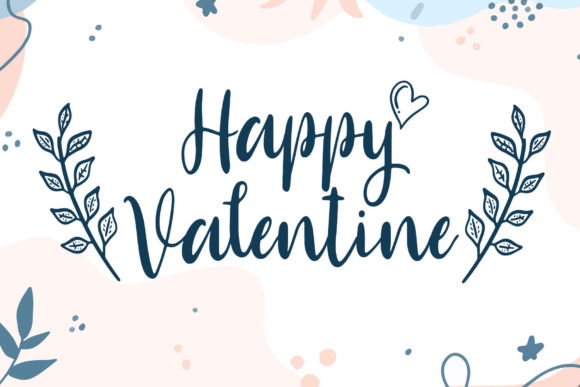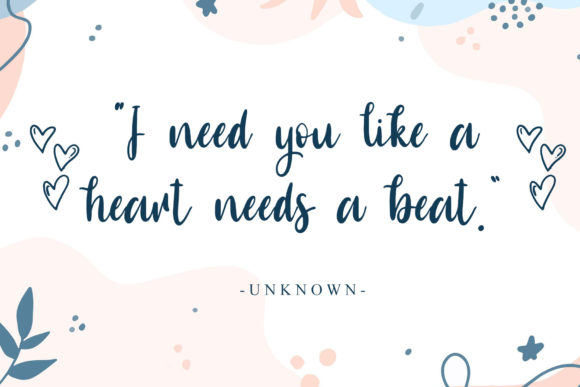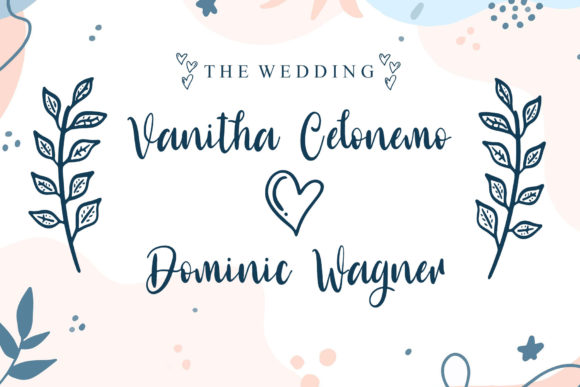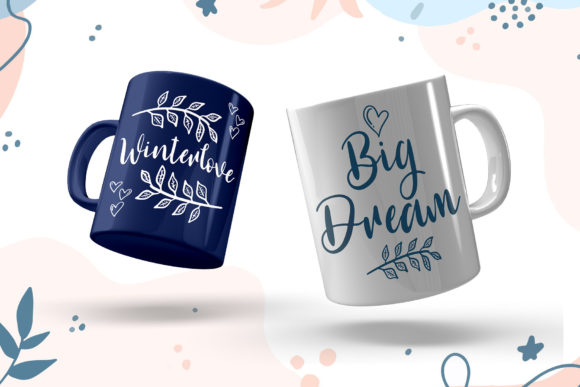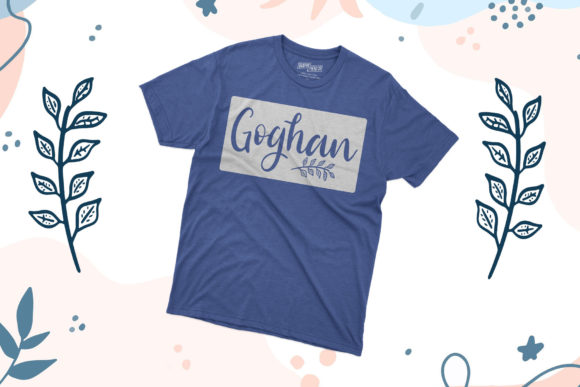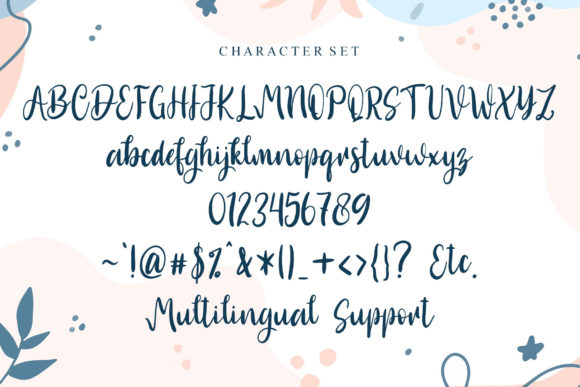
The Perfect Script Font for Your Next Design Project
Have you ever been stuck on a design project, staring at a blank canvas, searching for the perfect font to bring your vision to life? I know I have. It’s that moment when you need a font that speaks to you, that makes your design pop, and that tells a story. For me, that moment came when I discovered the Biglove Font.
This dazzling script font is the perfect combination of elegance and playfulness. Neatly crafted and highly detailed, the Biglove Font is a true masterpiece. But what really sets it apart is its PUA encoding, making it easy to access all the glyphs and swashes you need to create truly unique designs. Whether you’re a seasoned designer or just starting out, the Biglove Font is a valuable addition to your toolkit.
Key Features of Biglove Font
- Unique Characteristics: Biglove Font features a bold, playful design with rounded edges and a unique letterform style, making it ideal for use in titles, headings, and other display typography.
- Glyphs and Characters: The font includes a wide range of glyphs and characters, including ligatures, swashes, and ornaments, adding to its versatility and creative potential.
Biglove Font Review
I recently had the chance to work with the Biglove font, and I must say it’s a unique and interesting choice. Here are my honest thoughts:
- The font has a fun and playful vibe that’s perfect for projects that require a touch of whimsy.
- The font is highly customizable, allowing for easy adjustments to line height, letter spacing, and font size.
- The Biglove font is compatible with a wide range of devices and platforms, making it a great choice for web design projects.
- The font can be difficult to read in smaller sizes, especially for body text.
- The font’s playful nature can make it challenging to use in more formal or professional contexts.
- The font’s compatibility with certain font rendering engines can be hit-or-miss, leading to inconsistent display on some devices.
Overall, I think the Biglove font is a great choice for projects that require a unique and eye-catching design element. However, it’s not the best choice for every project, and designers should carefully consider the font’s limitations before using it. With careful planning and execution, the Biglove font can be a great addition to your design toolkit.
Getting the Most Out of Biglove Font
Biglove Font is a versatile font that can be used for a variety of purposes, from branding and marketing to editorial and creative projects.
Some tips for getting the most out of Biglove Font include:
1. Experiment with different font sizes and combinations to create visually appealing designs.
2. Use Biglove Font to create a consistent brand identity across all your marketing materials.
3. Combine Biglove Font with other design elements, such as images and graphics, to create engaging and dynamic designs.
Biglove Font is commonly used for:
1. Branding and marketing materials, such as logos, business cards, and brochures.
2. Editorial and creative projects, such as magazines, books, and websites.
3. Social media and online
Alternatives to Biglove Font for Designers
Great Vibes is a beautiful, elegant script font that is perfect for creating a romantic or vintage feel in your designs. It features connected letters and a flowing style that makes it ideal for titles, headings, and quotes. Great Vibes is a great alternative to Biglove Font as it offers a similar elegant and sophisticated feel, but with a more refined and polished look.